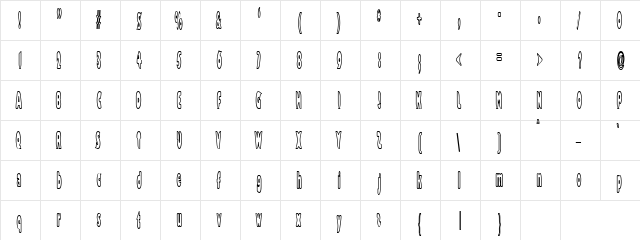
Batistuta Argu Regular
Design Context for Batistuta Argu Typeface
Batistuta Argu offers clean, dependable letterforms without strong stylistic allegiance, making it a practical choice for designers who need flexibility.